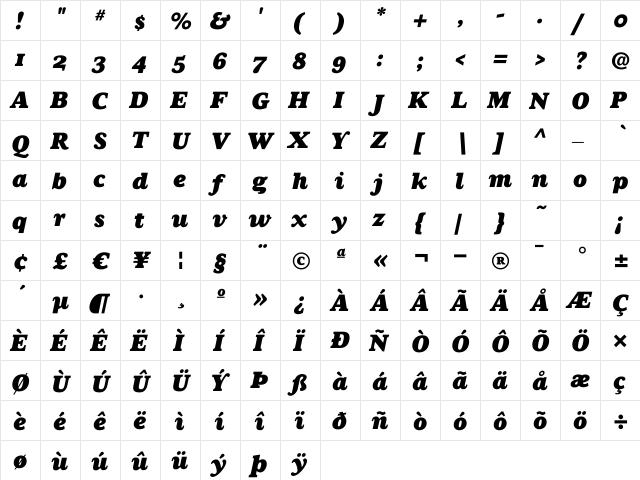
Aurea UltraItalic Regular
Design Context for Aurea UltraItalic Typeface
Aurea UltraItalic takes a measured approach to typography — its balanced proportions and neutral character make it a reliable workhorse for both digital and print work. The dynamic lean of this cut emphasises speed and emphasis in any layout.